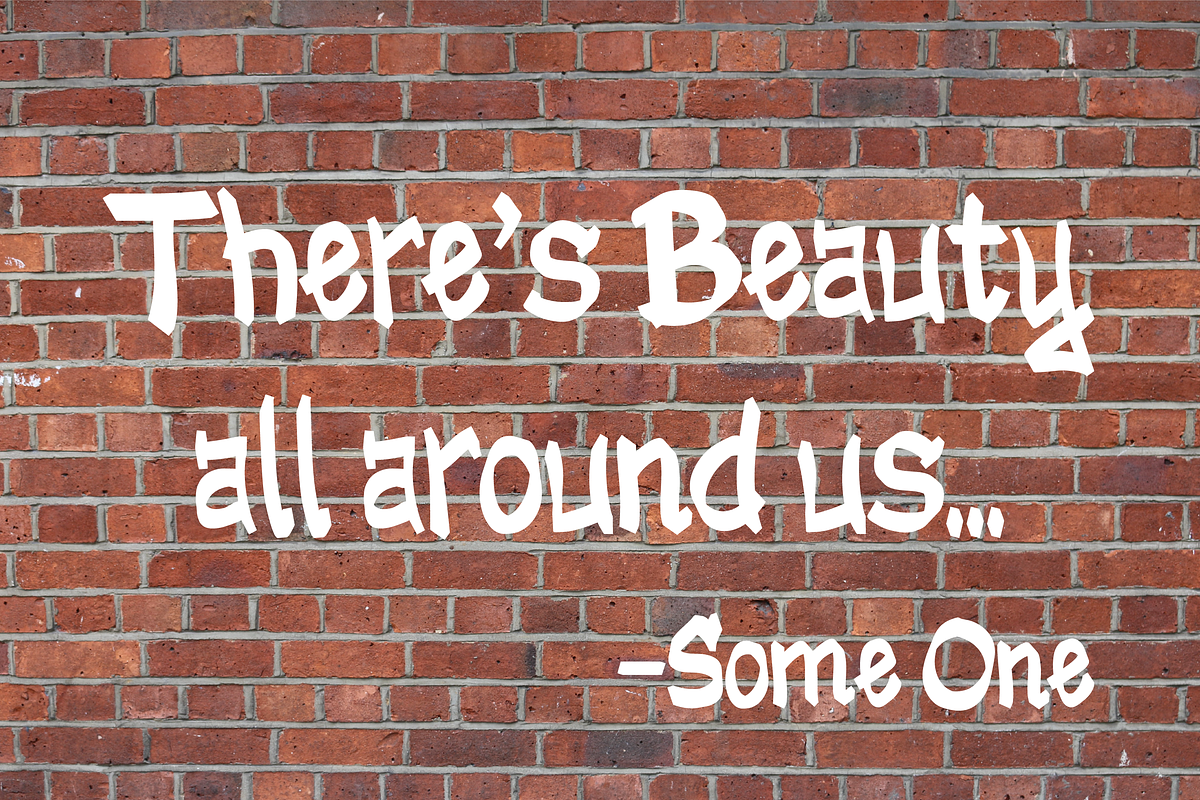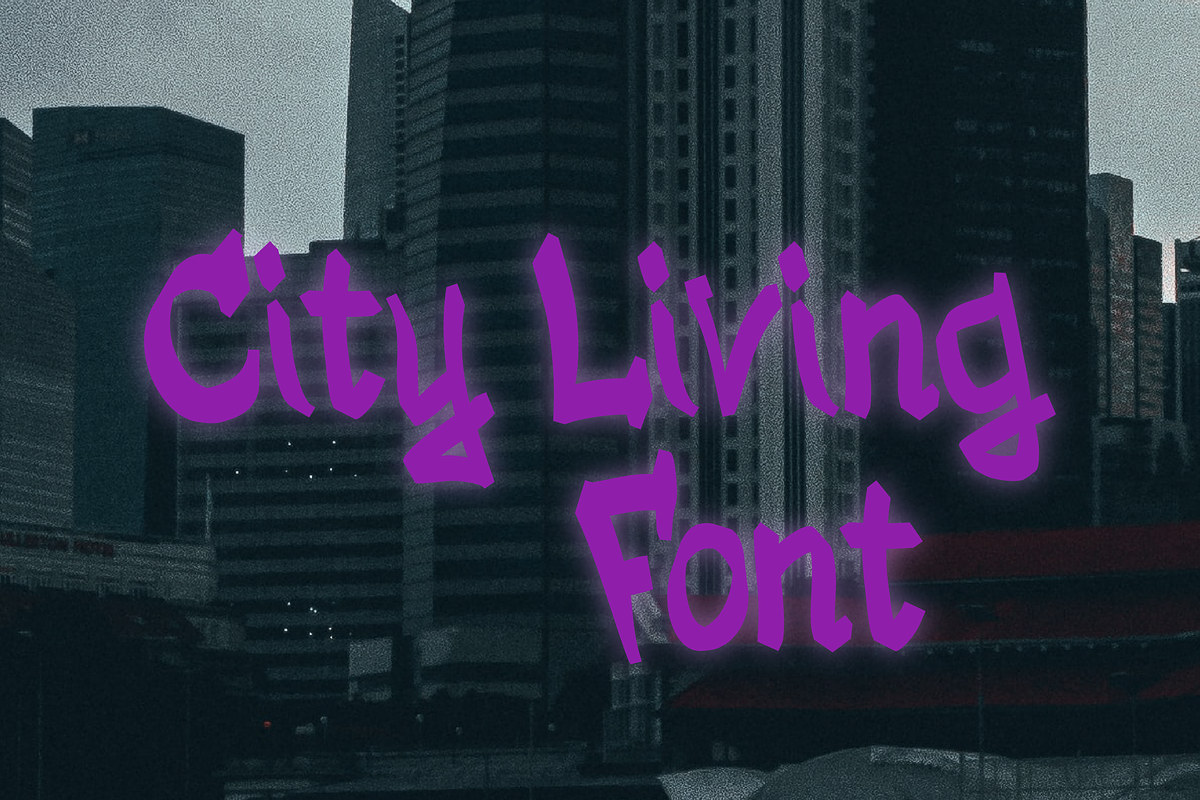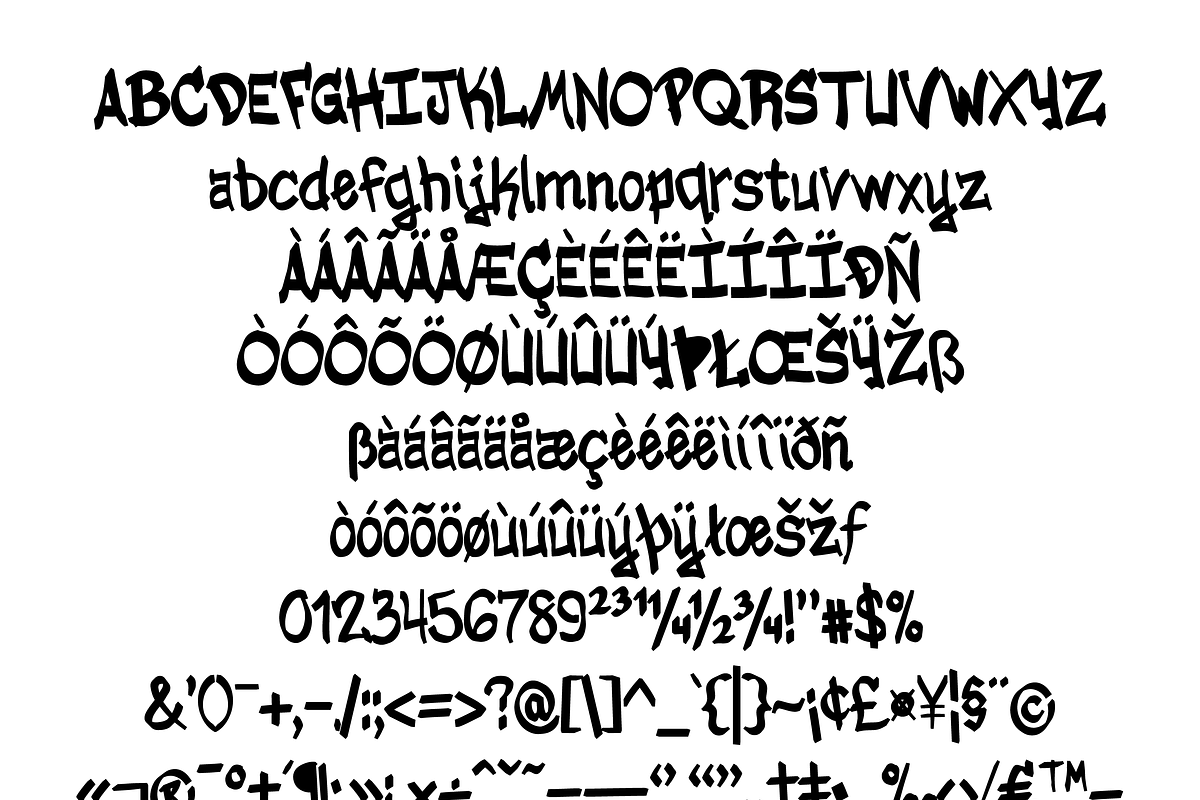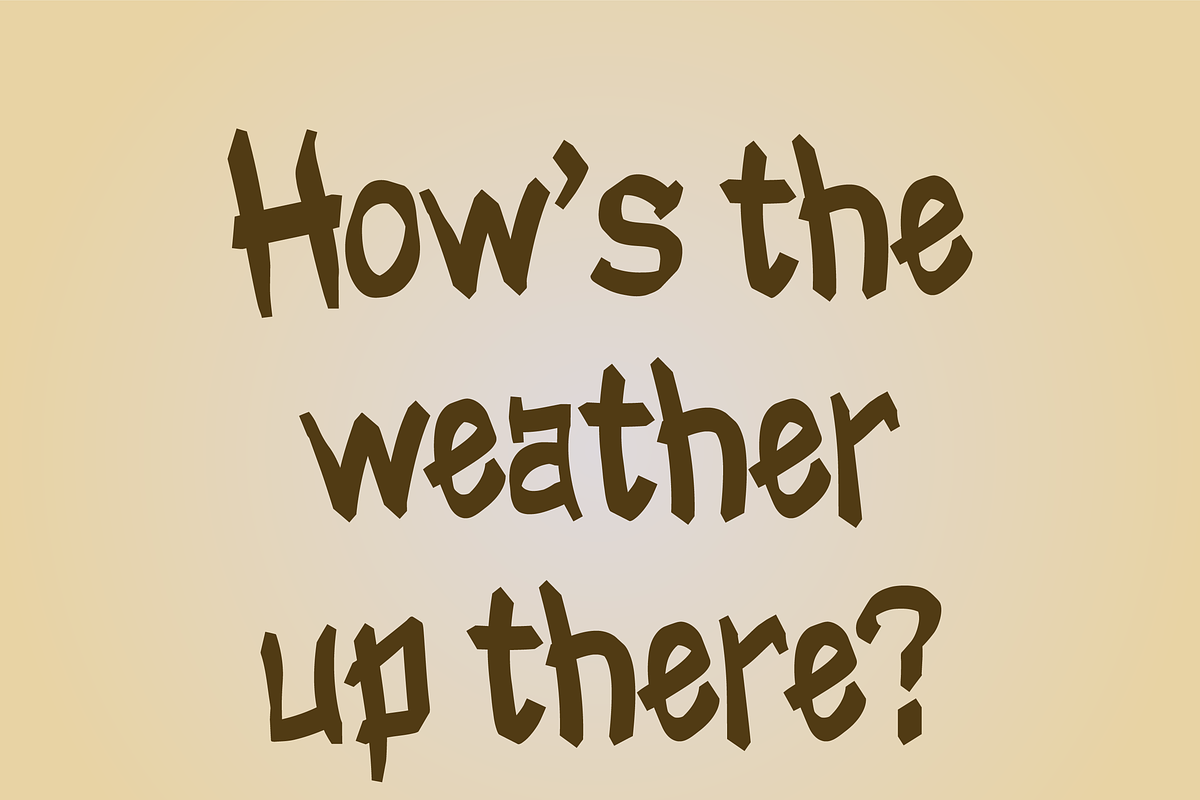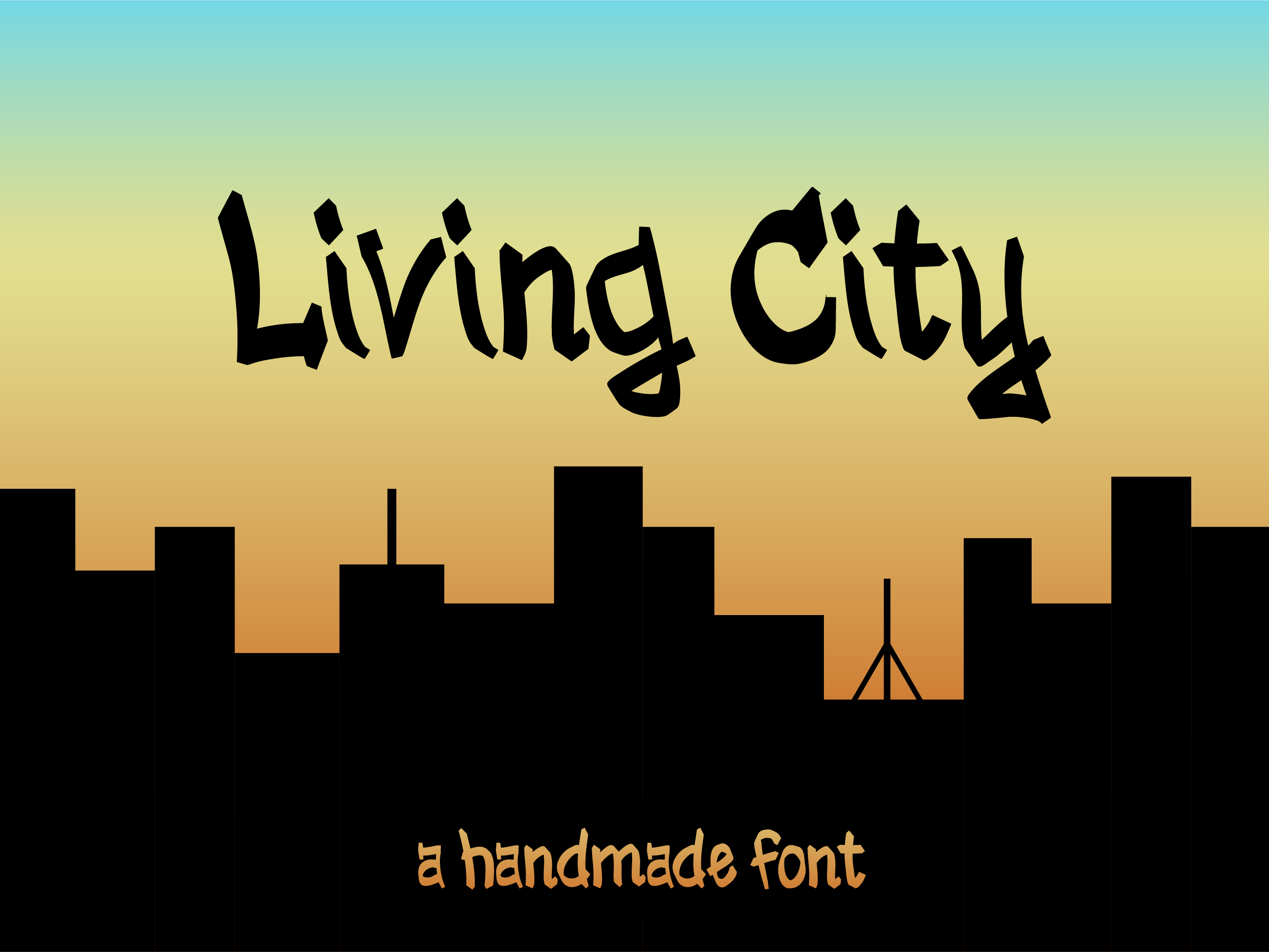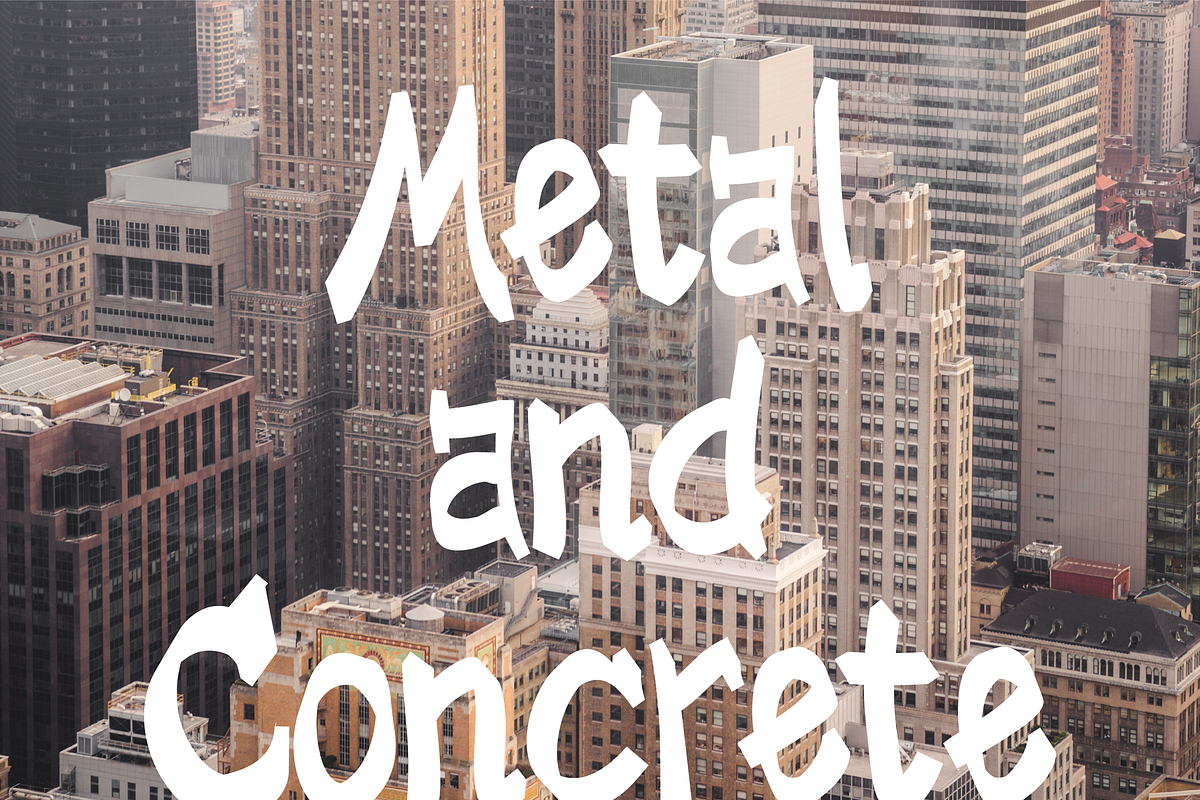
Living City Font
Living City is a modern, minimalist graffiti font. It’s handmade and brings an urban feel to any project. Use it for your logos, posters, movie titles, social media, flyers, and more.